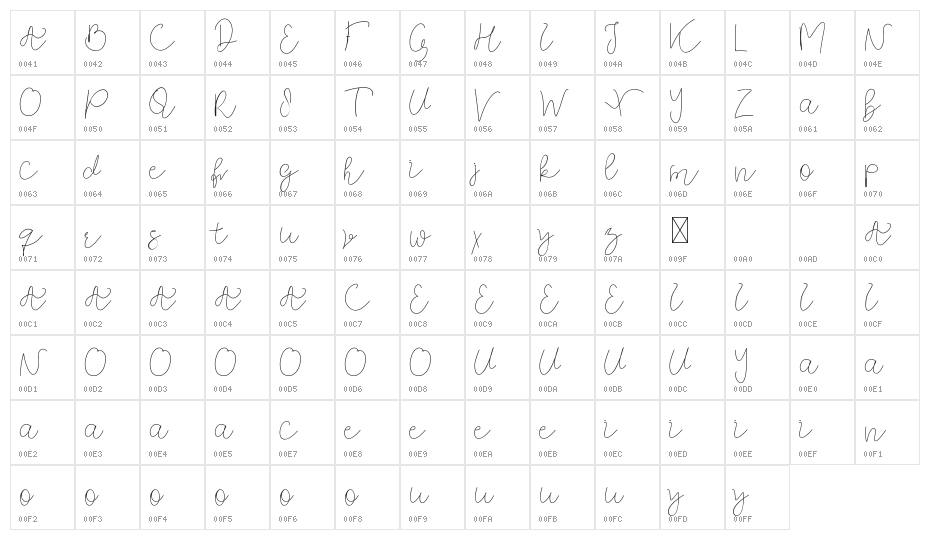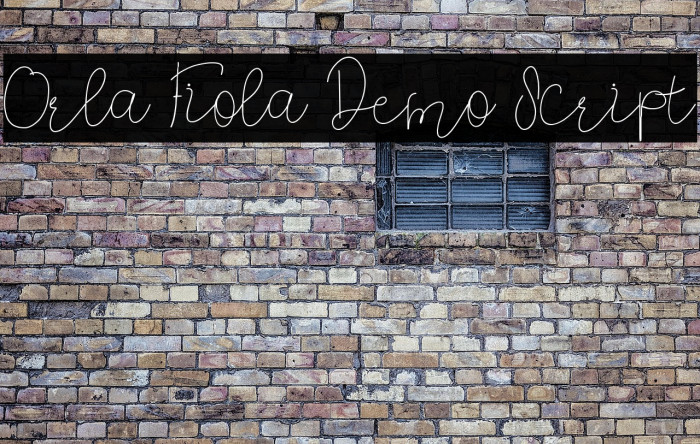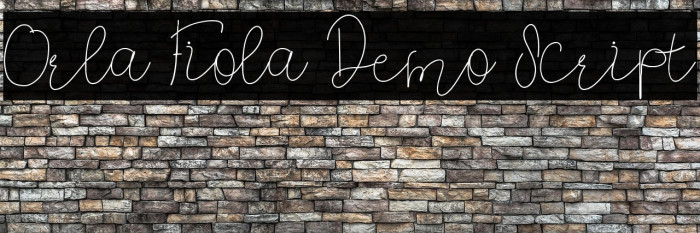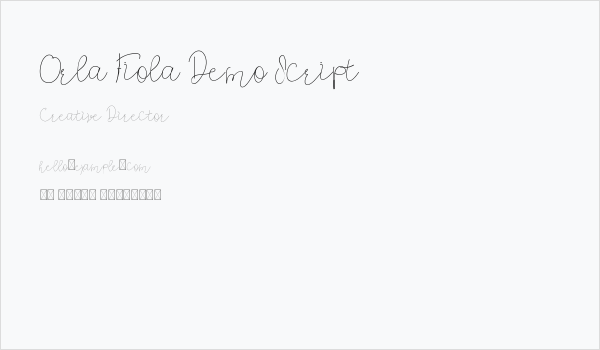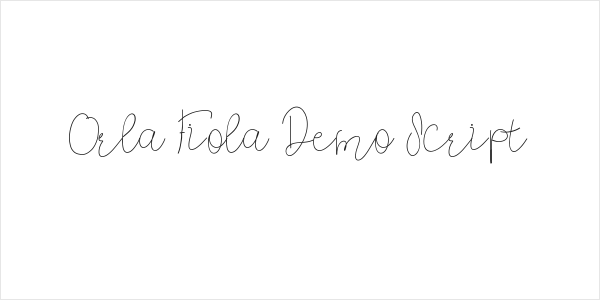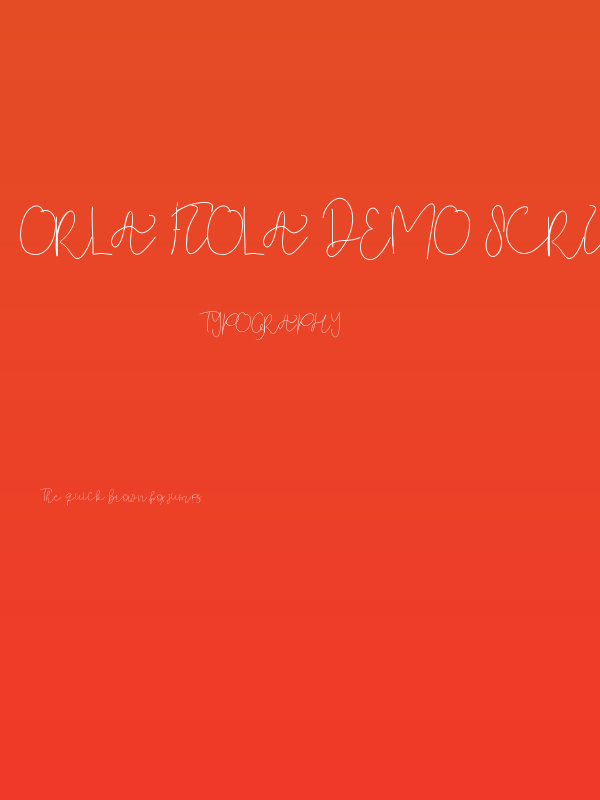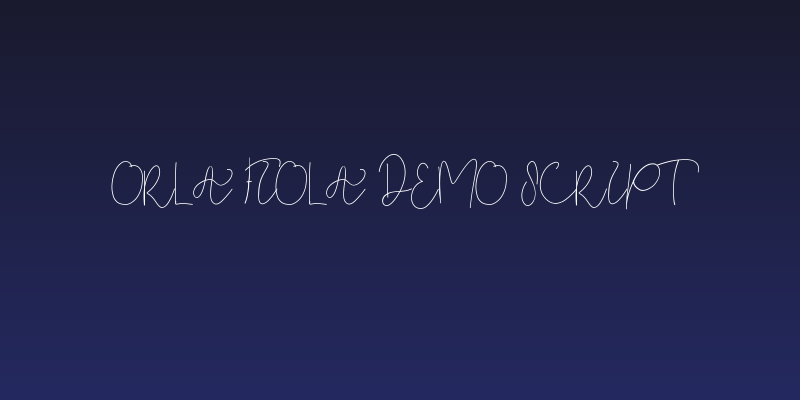
Orla Fiola Demo Script Font
Orla Fiola Demo Script Description
This elegant script font features a fluid, handwritten style with a modern twist. The characters are connected with smooth, flowing lines, giving it a sophisticated and artistic appearance. The uppercase letters are slightly taller and more prominent, while the lowercase letters maintain a consistent flow. The font exhibits a delicate balance between thin and slightly thicker strokes, adding a touch of elegance and readability. It is perfect for projects that require a personal, yet refined touch, such as invitations, greeting cards, and branding materials. The overall design is both graceful and contemporary, making it versatile for various creative applications.
Use CaseLogos, Invitations, Greeting Cards
Proposed ProjectsIdeal for invitations, greeting cards, branding, and artistic projects.